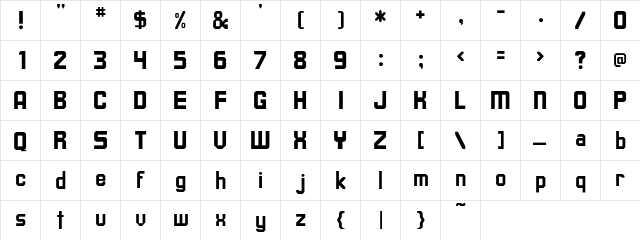
Dishrow Regular
Design Context for Dishrow Typeface
Dishrow offers clean, dependable letterforms without strong stylistic allegiance, making it a practical choice for designers who need flexibility.
Pro Tip: Use Dishrow in both headline and body roles to test its range before committing to a single application.